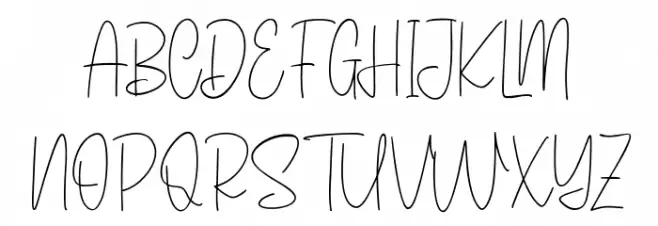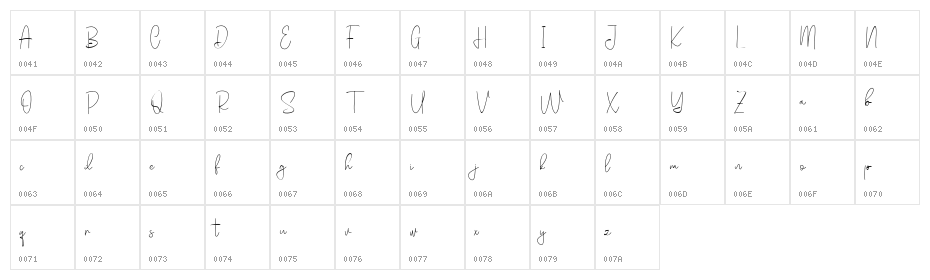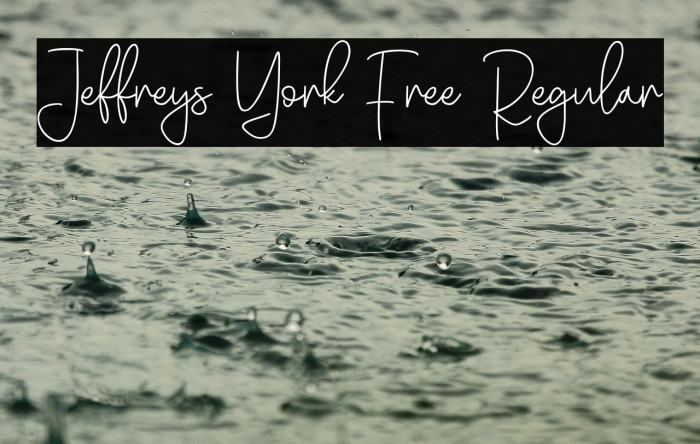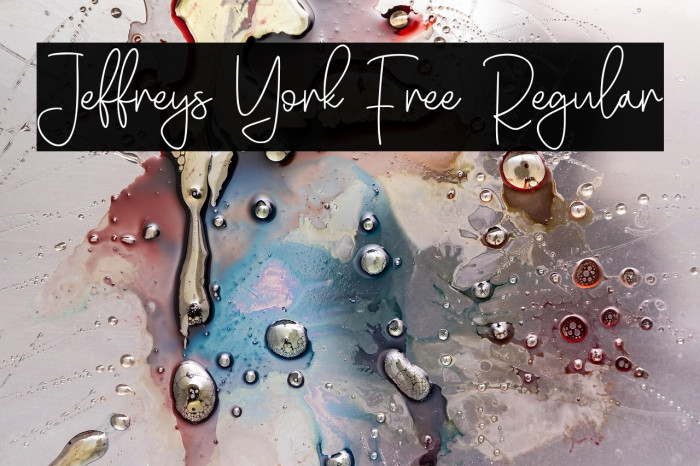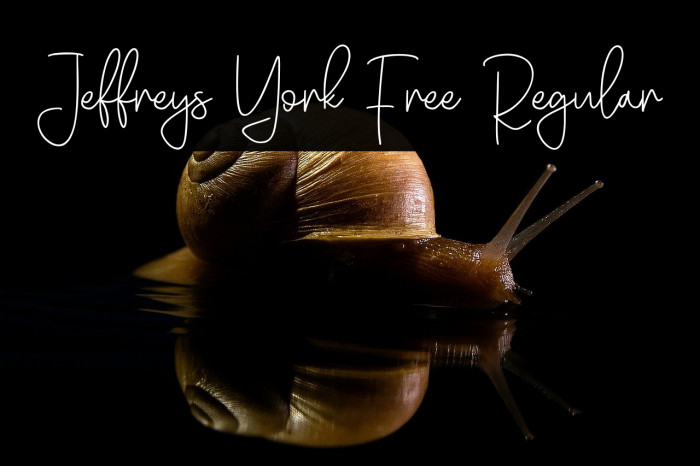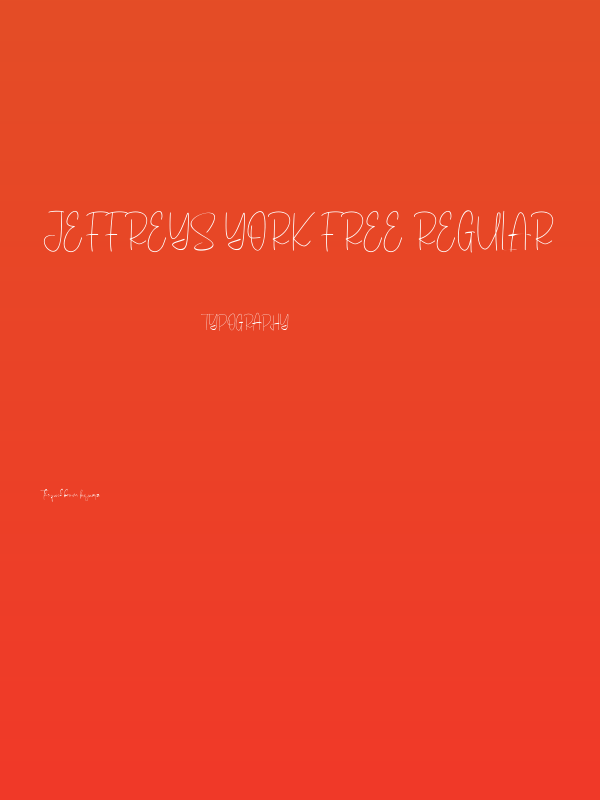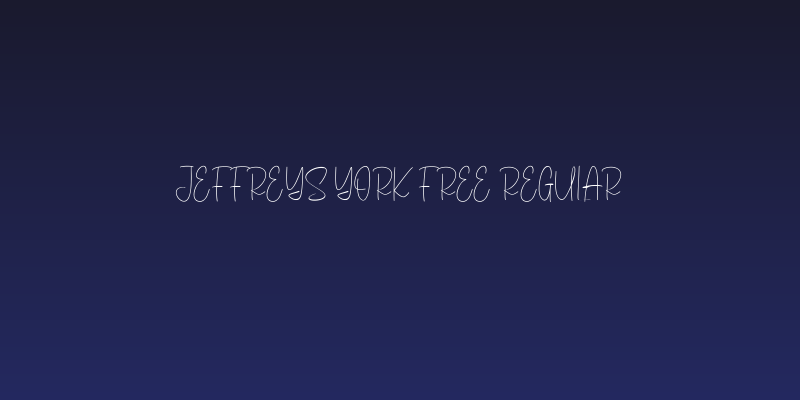
Jeffreys York Free Regular Font
Jeffreys York Free Regular Description
This font features a playful and whimsical handwritten style, characterized by its tall, narrow letterforms and slightly irregular strokes. The uppercase letters are distinct with elongated verticals and subtle curves, giving them a unique flair. The lowercase letters maintain a consistent flow, enhancing the font's casual and friendly appearance. The overall design is light and airy, making it suitable for projects that require a personal touch. The font's thin strokes and open counters contribute to its legibility, while the slight slant adds a dynamic feel.